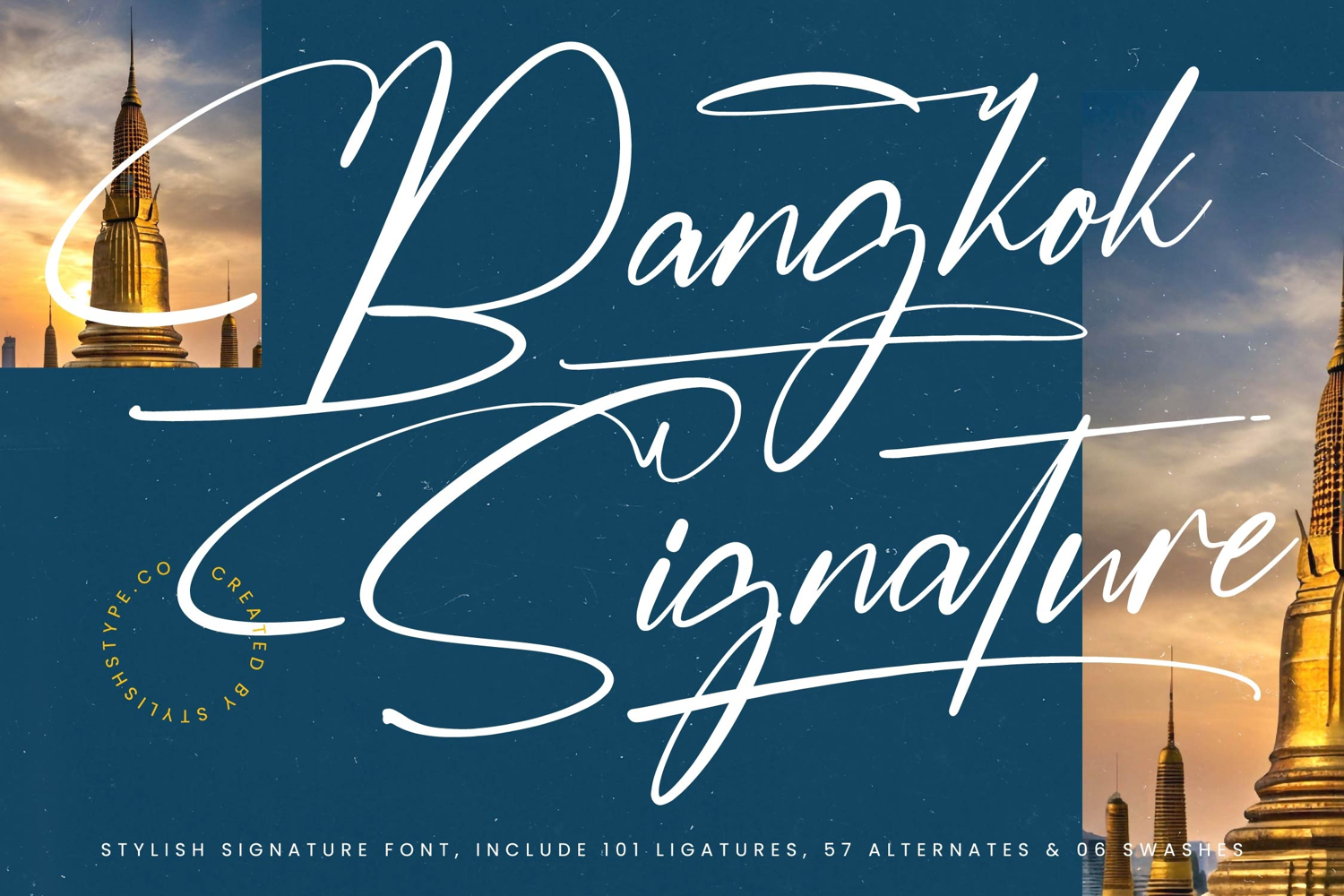
Bangkok Signature - Stylish Signature Font
Bangkok Signature
Bangkok Signature Italic
Bangkok Signature - Stylish Signature Font
Bangkok Signature is a stylish signature font that captures the elegance of handcrafted handwriting with modern refinement. Designed with flowing strokes, natural ligatures, and dynamic alternates, this font brings both authenticity and sophistication to any creative project. Each letter carries a balance of artistry and clarity, making it a versatile choice for designs that demand personality, luxury, and style.
In editorial and publishing, Bangkok Signature shines with expressive beauty. Magazines, book covers, fashion spreads, and creative invitations benefit from its flowing rhythm and artistic detail. It creates editorial layouts that are both stylish and readable, turning simple titles into striking visual statements.
The font works seamlessly in web typography. Ideal for websites, blogs, online portfolios, and social media graphics, it adds personality and refinement to digital projects. Its handwritten charm ensures that digital media communicates authenticity and sophistication, making it an excellent choice for modern creatives and influencers.
Its impact is equally strong in advertising and marketing. From posters, product promotions, and billboards to flyers and business cards, Bangkok Signature enhances campaigns with a luxurious handwritten touch. It ensures advertising remains impactful yet refined, appealing to audiences that value artistry and style.